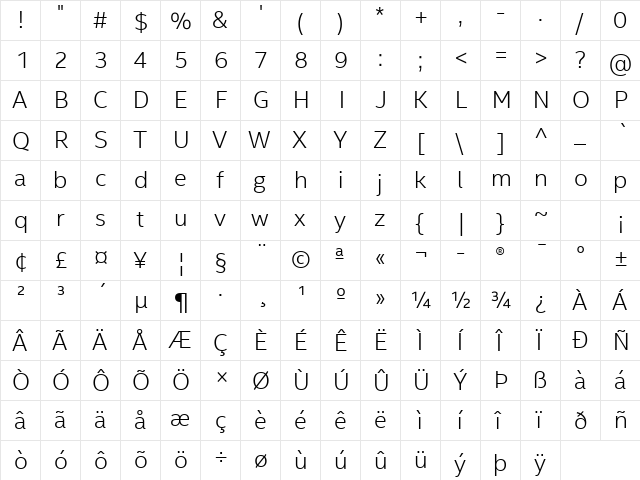
Intel Clear Light Regular
| Foundry | Dalton Maag Ltd |
| Designer | Dalton Maag Ltd |
Design Context for Intel Clear Light Typeface
Intel Clear Light takes a measured approach to typography — its balanced proportions and neutral character make it a reliable workhorse for both digital and print work. Its slender proportions lend an understated elegance to any composition.